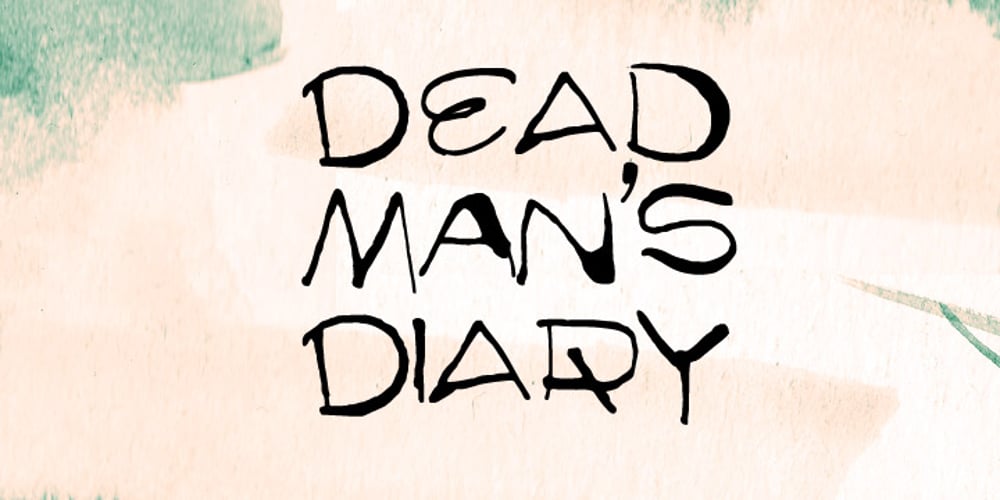
FT Dead Mans Diary
FT Dead Mans Diary font
FT Dead Mans Diary Font Family was designed by Emil Karl Bertell and published by Fenotype. FT Dead Mans Diary contains 2 styles and family package options. Dead Man’s diary is a hand-drawn ink font loaded with Fear and Loathing and paranoia. It’s suitable font for book covers, Indie Flyers and anonymous letters.